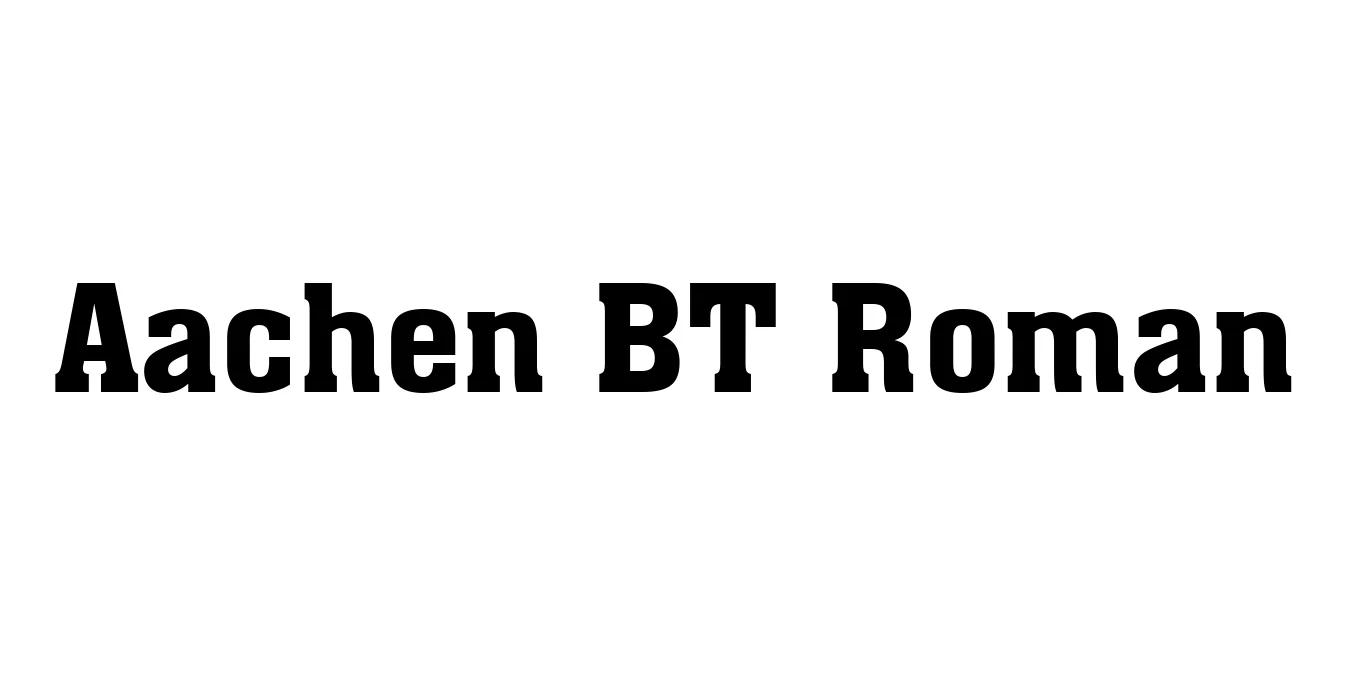
Aachen BT Roman
Designed by Colin Brignall and Alan Meeks
| Category | Slab Serif |
| Designer | Colin Brignall and Alan Meeks |
Aachen BT Roman is a quintessential slab-serif typeface originally designed by Colin Brignall in 1969 for Letraset, with further refinements and weights developed by Alan Meeks. It is celebrated for its heavy, geometric letterforms and powerful presence, which strike a balance between industrial rigidity and approachable curves. The font's slab serifs are short and thick, providing a grounded, stable look that commands immediate attention in display settings.
The BT version signifies the Bitstream iteration of this classic face, maintaining the integrity of the original design while ensuring digital compatibility. Over the decades, it has become a go-to choice for sports branding, collegiate apparel, and high-impact advertising. Its bold, masculine aesthetic makes it particularly effective for headlines, posters, and any project requiring a sense of strength and reliability.
Aachen BT Roman Best Uses
Excellent for team logos, jerseys, and stadium signage due to its robust weight.
High-impact headlines for magazines and promotional posters.
A staple for university-style sweatshirts and varsity-themed athletic wear.
Provides strong, readable titles for digital banners and thumbnails.